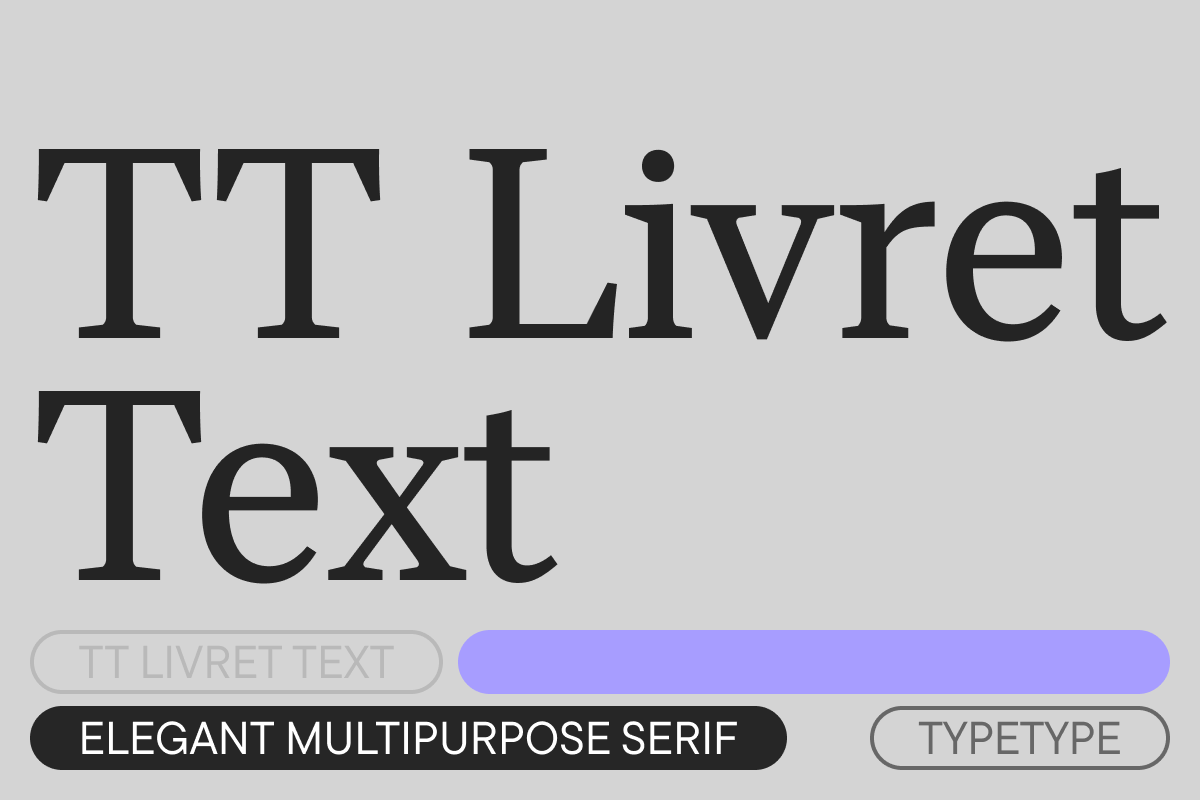
TT Livret Text Bold Italic
TT Livret is an elegant, modern, and functional serif featuring both text and expressive display subfamilies. The font looks harmonious in books and other periodicals, on posters, and on magazine covers. The use range of TT Livret goes far beyond the printing industry, as this font gives an aesthetic look to any text typed in it. The Text subfamily of TT Livret has static proportions, a tranquil personality, oval shapes of rounded characters, loose spacing, and open apertures.